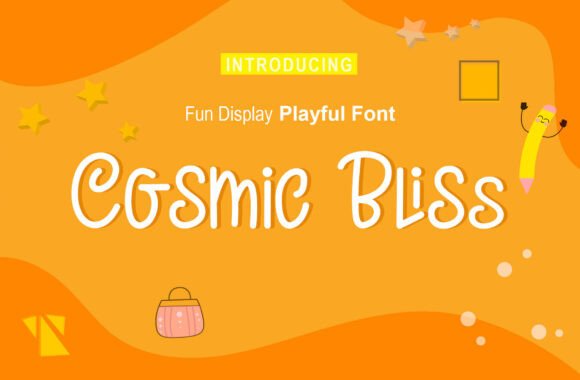
Cosmic Bliss Font: Elevate Your Designs with a Playful and Natural Touch
Are you looking for a font that can add a dash of fun and playfulness to your designs? Look no further than the Cosmic Bliss font. This delightful font is crafted with natural handwritten inspiration, making it perfect for a wide range of creative projects. In this article, we’ll explore the features and benefits of the Cosmic Bliss font, and how it can help you create stunning designs that capture the attention of your audience.
What is Cosmic Bliss Font?
Cosmic Bliss is a fun and playful font created with natural handwritten inspiration. It’s designed to bring a sense of joy and whimsy to your designs, making it ideal for projects that require a personal touch. The font’s unique and elegant style is sure to make your designs stand out from the crowd.
Key Features of Cosmic Bliss Font
- Natural Handwritten Inspiration: The Cosmic Bliss font is crafted with natural handwritten inspiration, giving it a unique and personal touch.
- Playful and Fun: The font’s playful and fun style makes it perfect for designs that require a lighthearted and carefree approach.
- Highly Versatile: The Cosmic Bliss font is suitable for a wide range of creative projects, including greeting cards, invitations, posters, baby clothing, book covers, quotes, logos, presentations, headlines, and more.
- Elegant and Unique: The font’s elegant and unique style is sure to make your designs stand out from the crowd.
Use Cases for Cosmic Bliss Font
The Cosmic Bliss font is highly versatile and can be used for a wide range of creative projects. Here are some of the most popular use cases for this delightful font:
Popular Use Cases
- Greeting Cards: Add a personal touch to your greeting cards with the Cosmic Bliss font.
- Invitations: Make your invitations stand out with the font’s playful and elegant style.
- Posters: Create eye-catching posters with the Cosmic Bliss font.
- Baby Clothing: Add a touch of whimsy to baby clothing with the font’s playful style.
- Book Covers: Make your book covers stand out with the Cosmic Bliss font.
- Quotes: Add a touch of elegance to your quotes with the font’s unique style.
- Logos: Create a memorable logo with the Cosmic Bliss font.
- Presentations: Add a touch of playfulness to your presentations with the font’s fun style.
- Headlines: Make your headlines stand out with the Cosmic Bliss font.
Benefits of Using Cosmic Bliss Font
The Cosmic Bliss font offers a range of benefits that make it an excellent choice for designers. Here are some of the most significant advantages of using this delightful font:
Key Benefits
- Unique and Eye-Catching: The Cosmic Bliss font is sure to make your designs stand out from the crowd.
- Highly Versatile: The font’s versatility makes it suitable for a wide range of creative projects.
- Easy to Read: The font’s clear and elegant style makes it easy to read.
- Time-Saving: The Cosmic Bliss font can save you time and effort in creating designs that look great.
- Cost-Effective: The font is a cost-effective solution for designers who want to create high-quality designs without breaking the bank.
In conclusion, the Cosmic Bliss font is a fun and playful font that can add a natural and handwritten touch to your designs. Its highly versatile and elegant style makes it suitable for a wide range of creative projects. With its unique and eye-catching style, the Cosmic Bliss font is sure to make your designs stand out from the crowd.